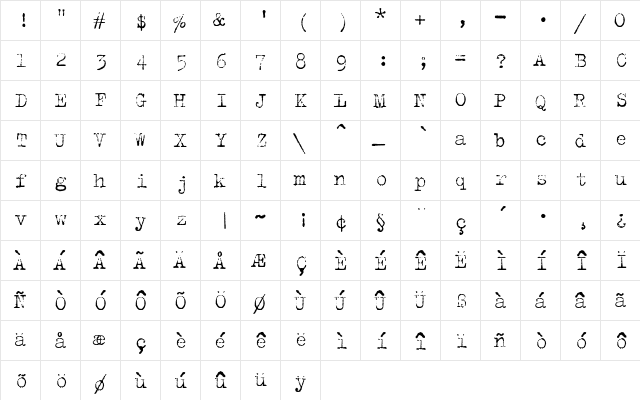
TrixieLight Regular Font Preview
TrixieLight Regular
TrixieLight Regular Font Details
Design Context for TrixieLight Typeface
TrixieLight takes a measured approach to typography — its balanced proportions and neutral character make it a reliable workhorse for both digital and print work. The delicate stroke weight brings airiness and refinement to layouts.
Pro Tip: Use TrixieLight in both headline and body roles to test its range before committing to a single application.